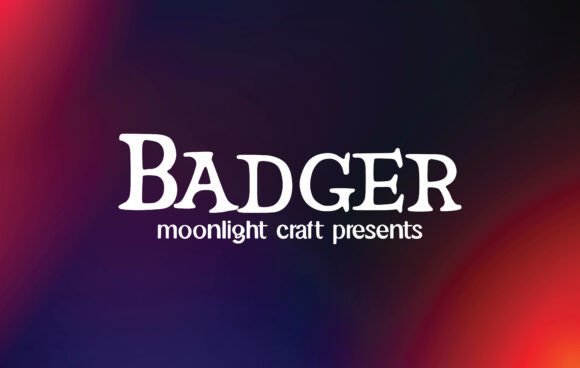
Have you ever stared at a blank page, font options staring back at you, and wished for a font that just clicked? For designers, this moment is all too familiar. We’ve all been there, searching for the perfect font to bring our vision to life. That’s why we’re excited to introduce the Badger Font – a versatile and stylish addition to your design arsenal.
With its clean lines and modern aesthetic, Badger Font is designed to elevate any creative project. Whether you’re crafting magazine headlines, designing social media posts, or creating branding materials, this font is sure to impress. Its readability and flexibility make it a valuable asset for designers looking to add a touch of sophistication to their work.
Badger Font Key Features
- Unique Characteristic: The font features a distinctive, hand-drawn style with subtle texture and imperfections, giving it a warm and human touch.
Badger Font Review
I recently had the chance to work with the Badger font, and I must say it’s been an interesting experience. Here are my thoughts on what works well and what doesn’t.
- The font’s bold weight is excellent for headings and titles. It adds a nice touch of sophistication to any design.
- The font’s x-height is well-balanced, making it easy to read even at smaller sizes.
- The font’s ligatures are well-designed, adding a touch of elegance to text.
- The font’s light weight can be a bit too light, making it difficult to read at smaller sizes.
- The font’s italic weight can be inconsistent, making it look a bit uneven at times.
- The font’s limited language support may be a limitation for designers working on multilingual projects.
Overall, the Badger font has its strengths and weaknesses. While it excels in certain areas, it falls short in others. I would recommend it for specific design projects where its strengths can be fully utilized, but it may not be the best choice for more complex or multilingual projects.
Getting the Most Out of the Badger Font
To get the most out of the Badger Font, use it in conjunction with bold and italic text to create visual interest.
Use the font in headings and subheadings to create a clear hierarchy of information.
The Badger Font is commonly used in:
Children’s books and educational materials.
Outdoor and nature-themed designs.
Whimsical and playful branding.